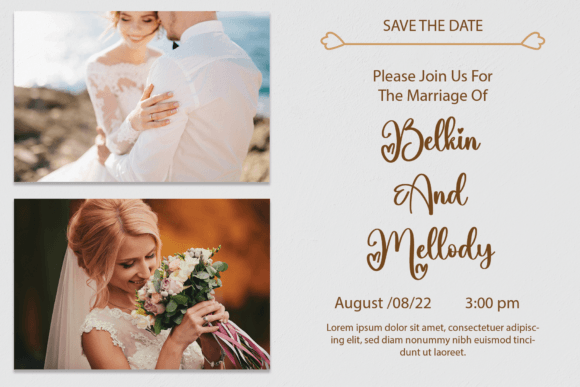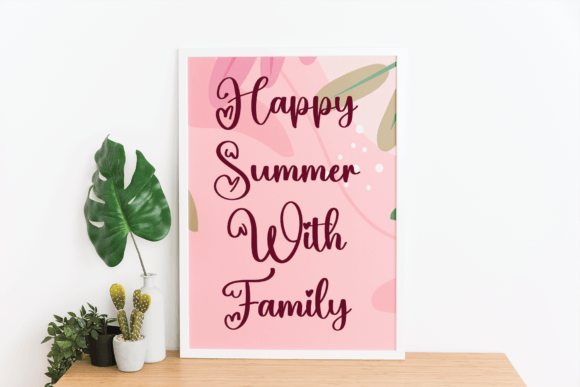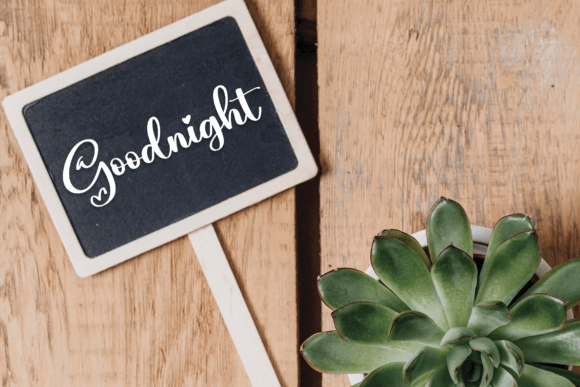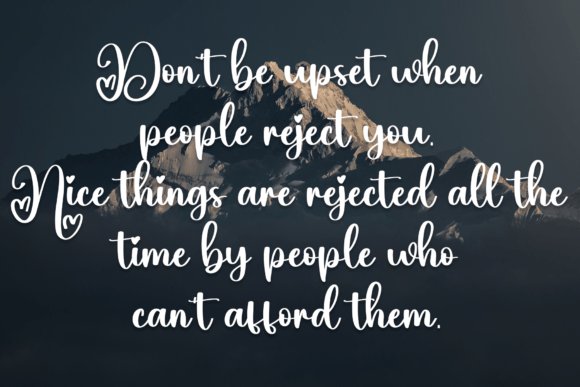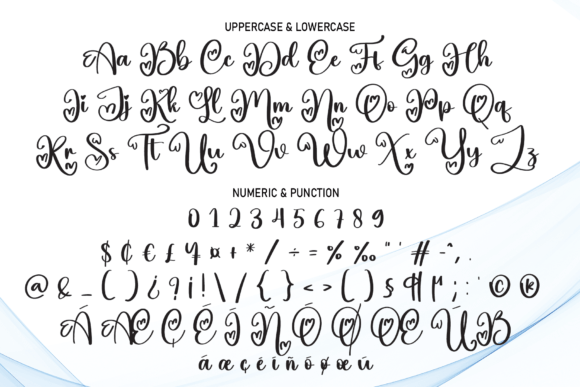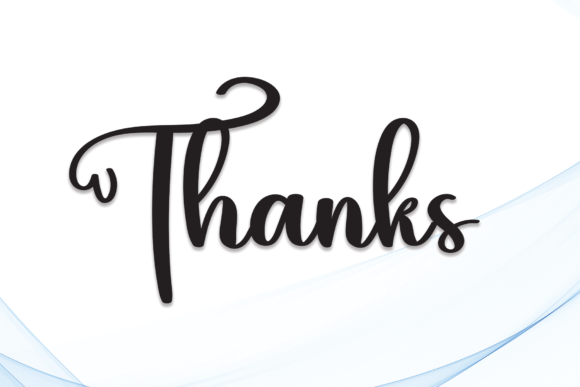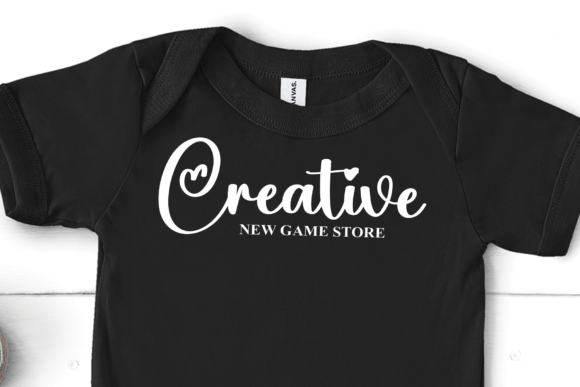
Choice Font
About Choice Font
Choice is a charming font that features connecting hearts, making it perfect for initials and display projects such as magazines and crafts. This unique font adds a delightful touch to your designs, especially those that require a personalized and heartfelt feel. Choice includes a cute heart with each character, making it particularly suitable for personalized holiday decorations. The font comes with a wide variety of heart illustrations, offering you multiple options to choose from.
The connecting hearts in Choice add a special and romantic element to the font, making it ideal for projects that involve initials or convey a sense of love and affection. Whether you’re working on a magazine cover or engaging in a craft project, Choice enhances the visual appeal with its heartwarming design.
The inclusion of heart illustrations with each character makes Choice versatile and customizable. This feature allows you to add a personalized touch to your designs, especially during holiday seasons or for projects that celebrate love and connection.
Choice is not just a font; it’s a design tool that allows you to infuse your projects with a sense of warmth and emotion. Whether you’re creating personalized decorations or working on a display project, Choice brings a unique and heartfelt charm, making your designs stand out with a touch of love and creativity.